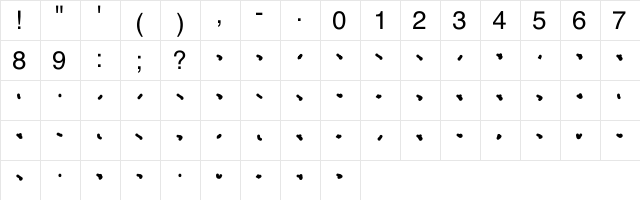
marco Regular
Design Context for marco Typeface
marco takes a measured approach to typography — its balanced proportions and neutral character make it a reliable workhorse for both digital and print work.